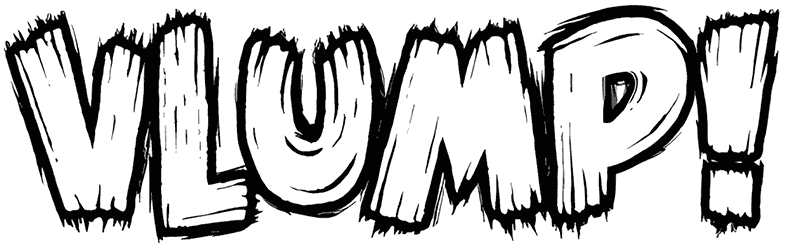
Vlump Font
If you were pursuing a cartoon font to take your graphics to a high level, consider Vlump, which offers 2 further styles in design variation. Looking inspired by brush font with comical and cute capital letters can convey a happy and friendly vibe to your books, signs, posters, etc. Tap on the download button and enjoy the output. Break a leg!